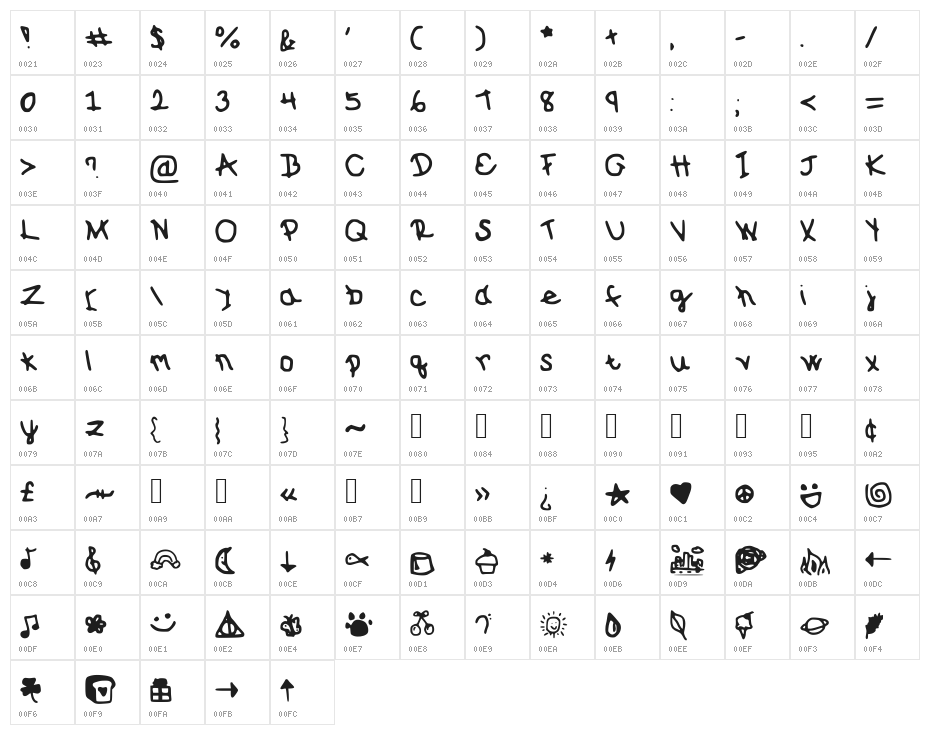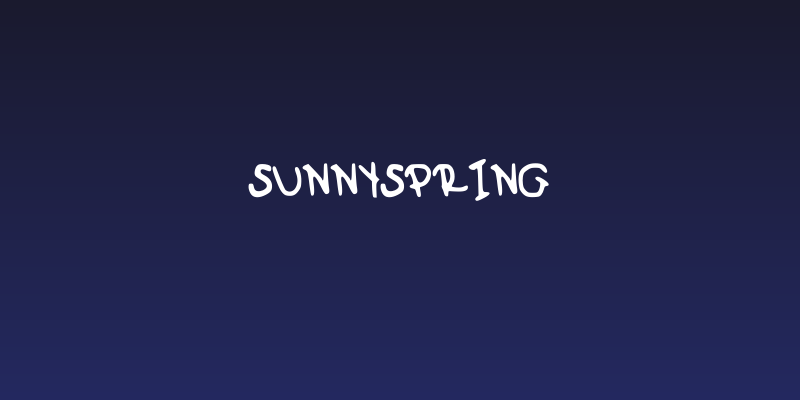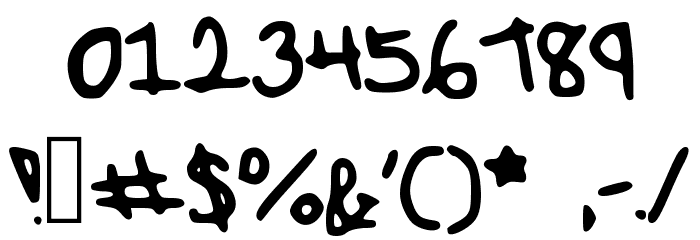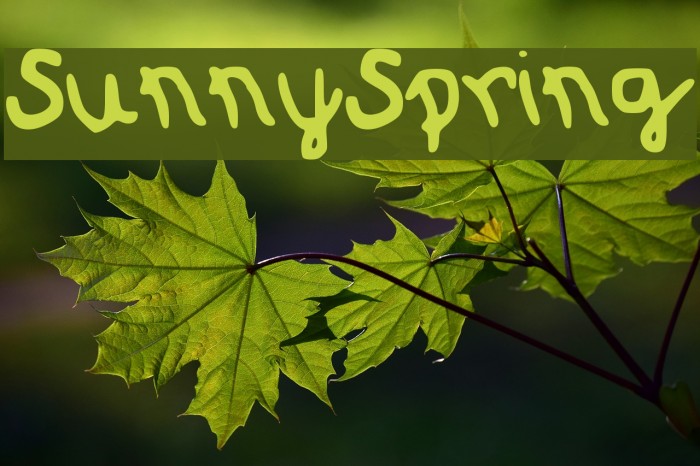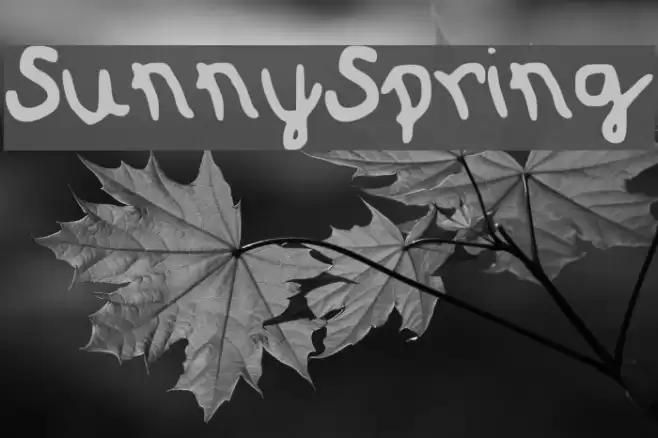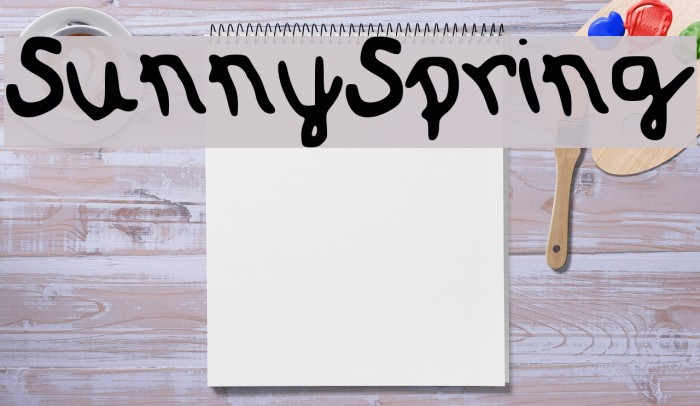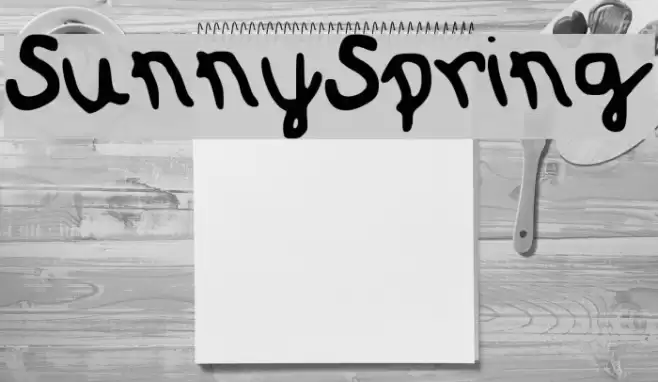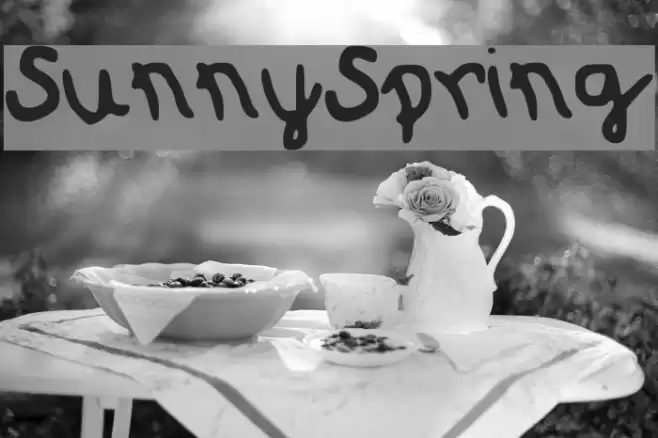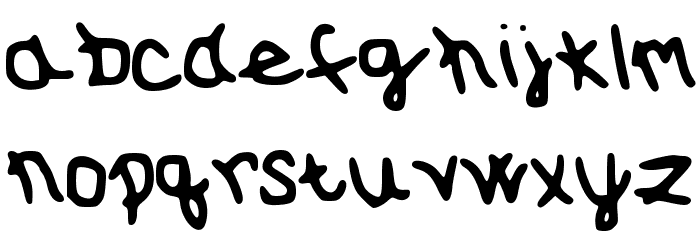
SunnySpring Font
SunnySpring Description
This font exudes a playful and casual vibe, characterized by its handwritten style that mimics the fluidity and spontaneity of natural handwriting. The letters are bold and slightly irregular, giving each character a unique personality. The strokes are thick and rounded, contributing to a friendly and approachable appearance. The uppercase and lowercase letters maintain a consistent style, with a slight slant that adds to the dynamic feel. Numbers and special characters are equally expressive, ensuring a cohesive look across all text elements. This font is perfect for projects that require a personal touch, such as greeting cards, invitations, or playful branding.
| Overall Style | Casual |
| Use Case | Headlines, Logos, Informal Text |
| Proposed Projects | Ideal for greeting cards, invitations, playful branding, and personal projects. |